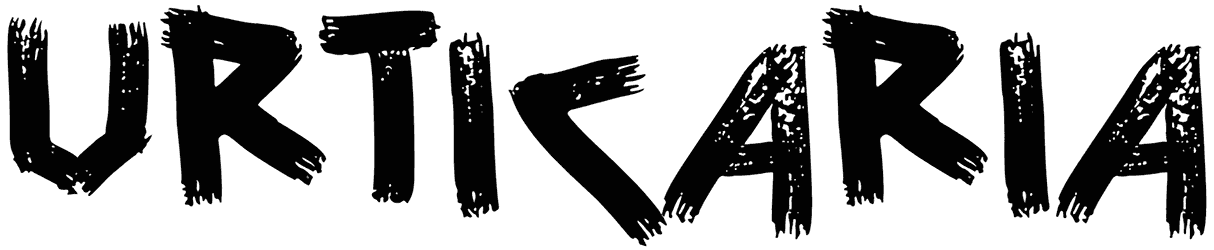
Vtks Urticaria Font
Vtks Urticaria is an all-caps script font that comes with a unique style and diversifies your graphic content. This adventure font has a geometric form and makes your posters, book covers, stickers, graffiti, or product packaging look more interesting.